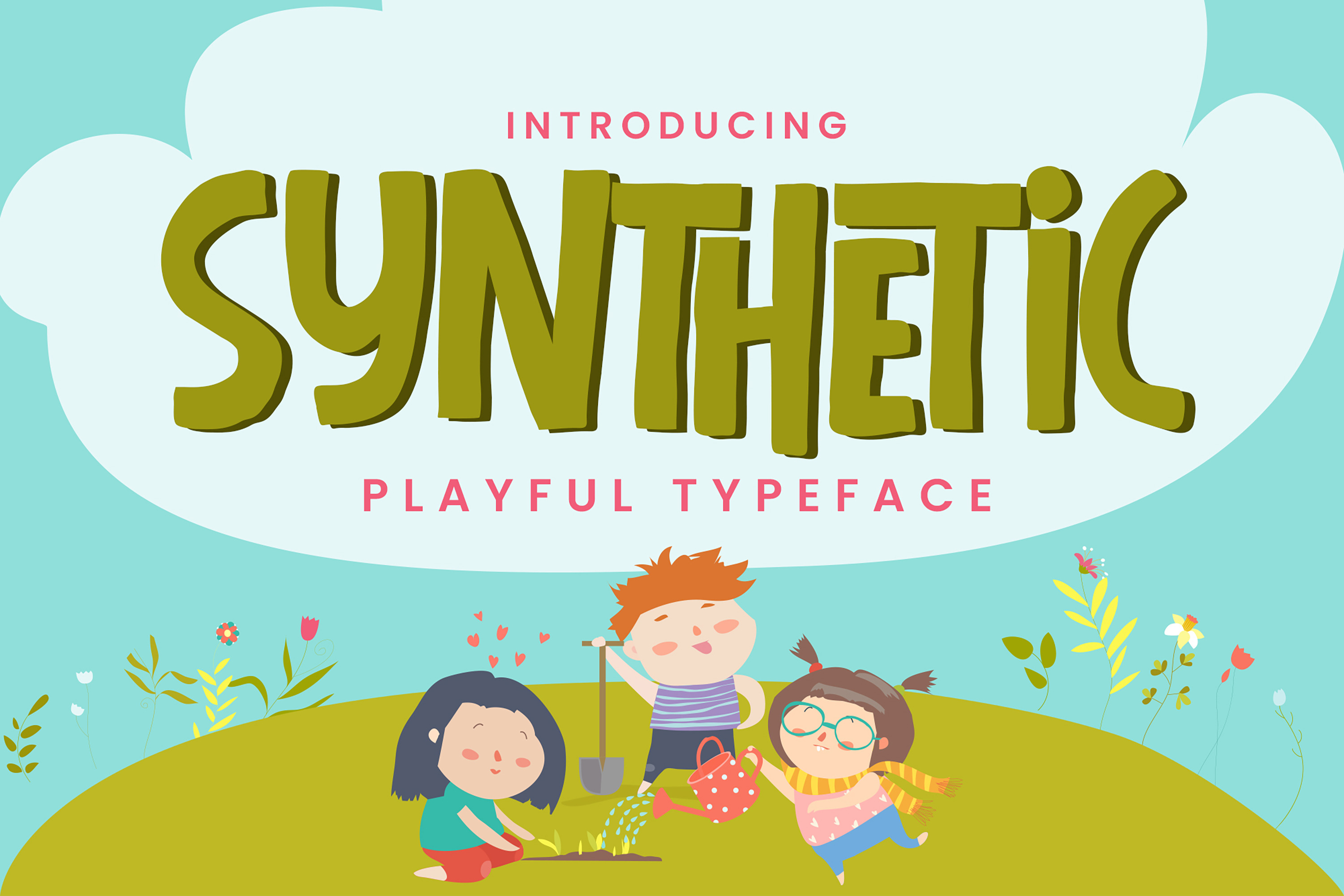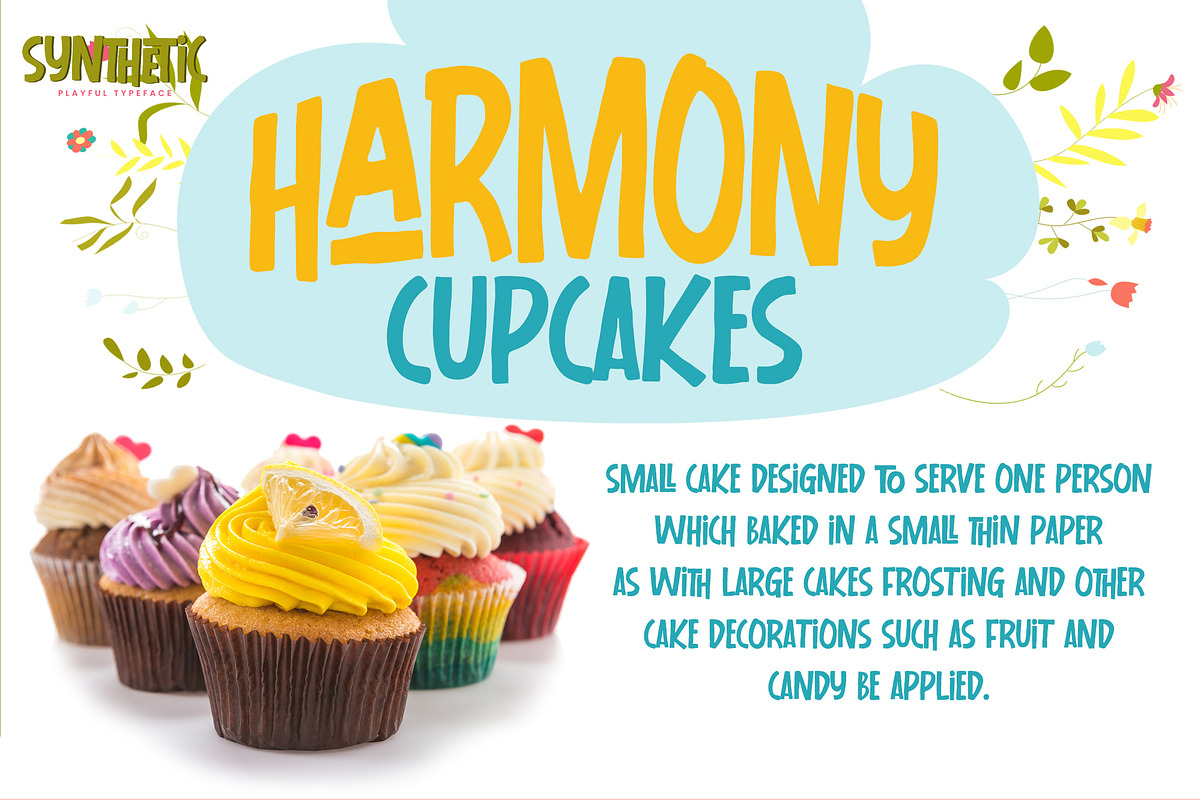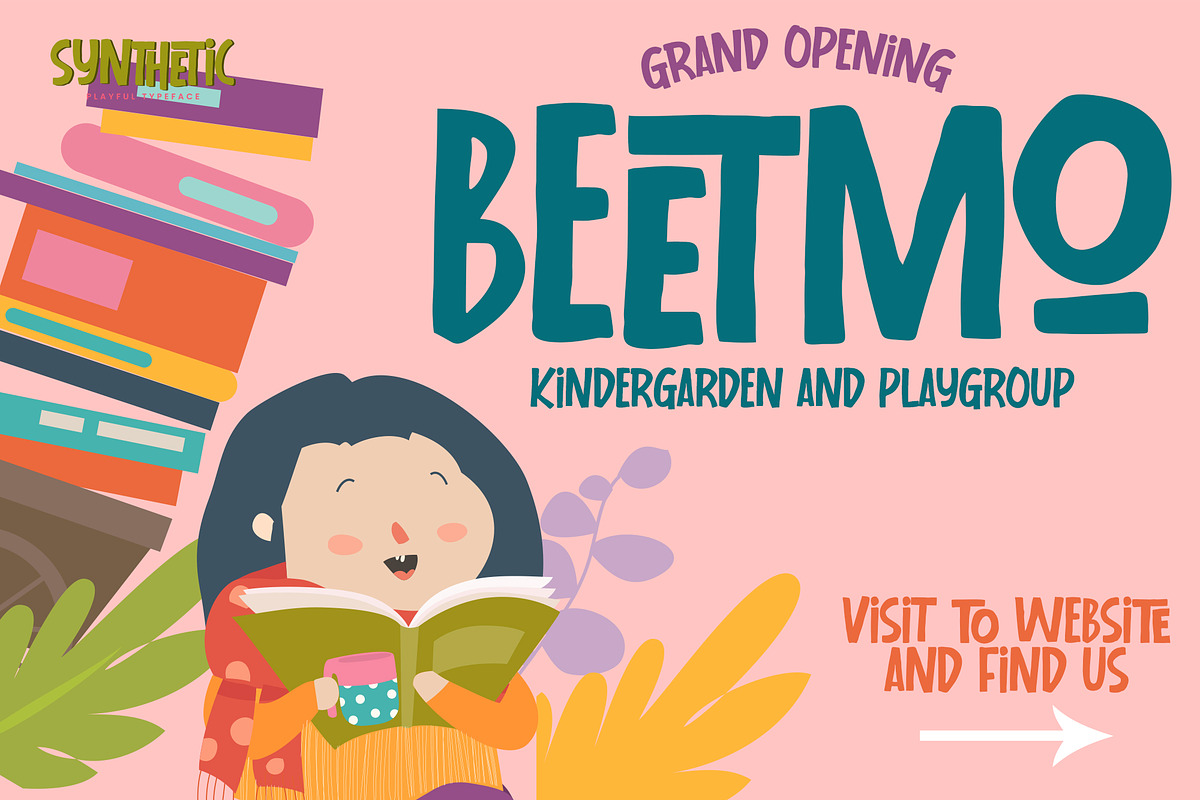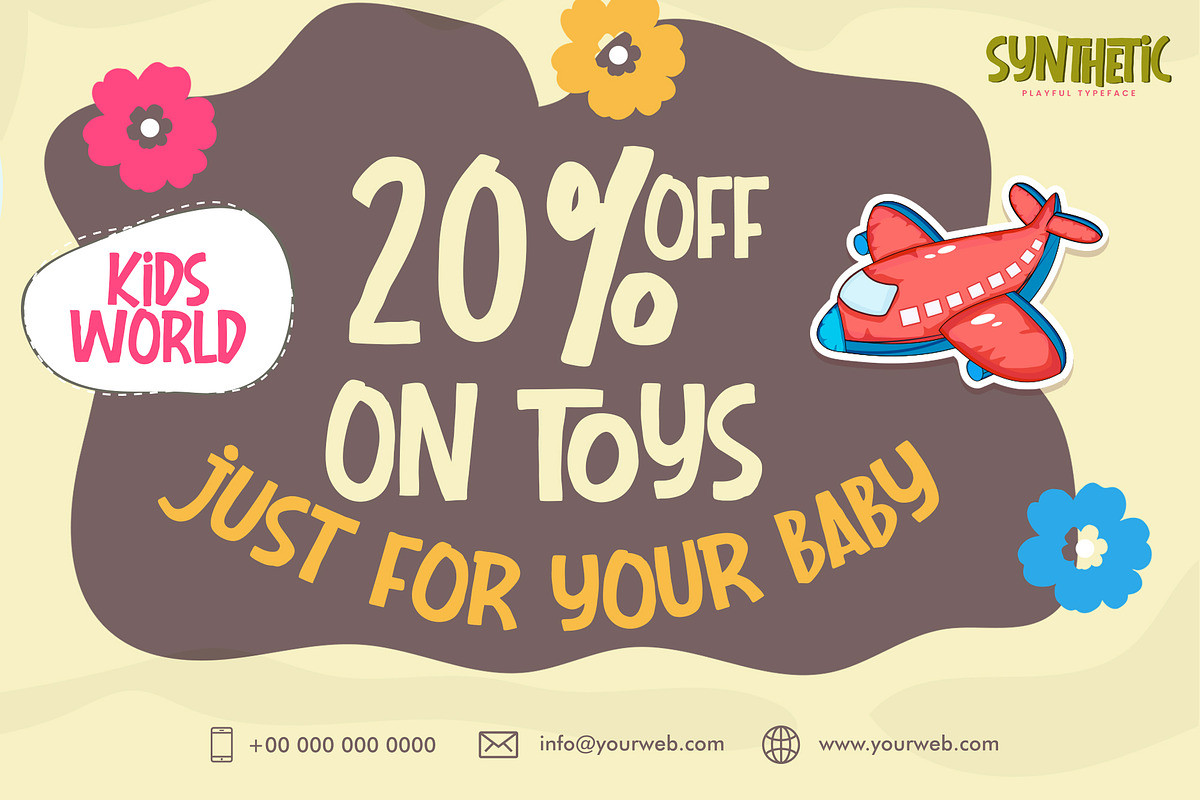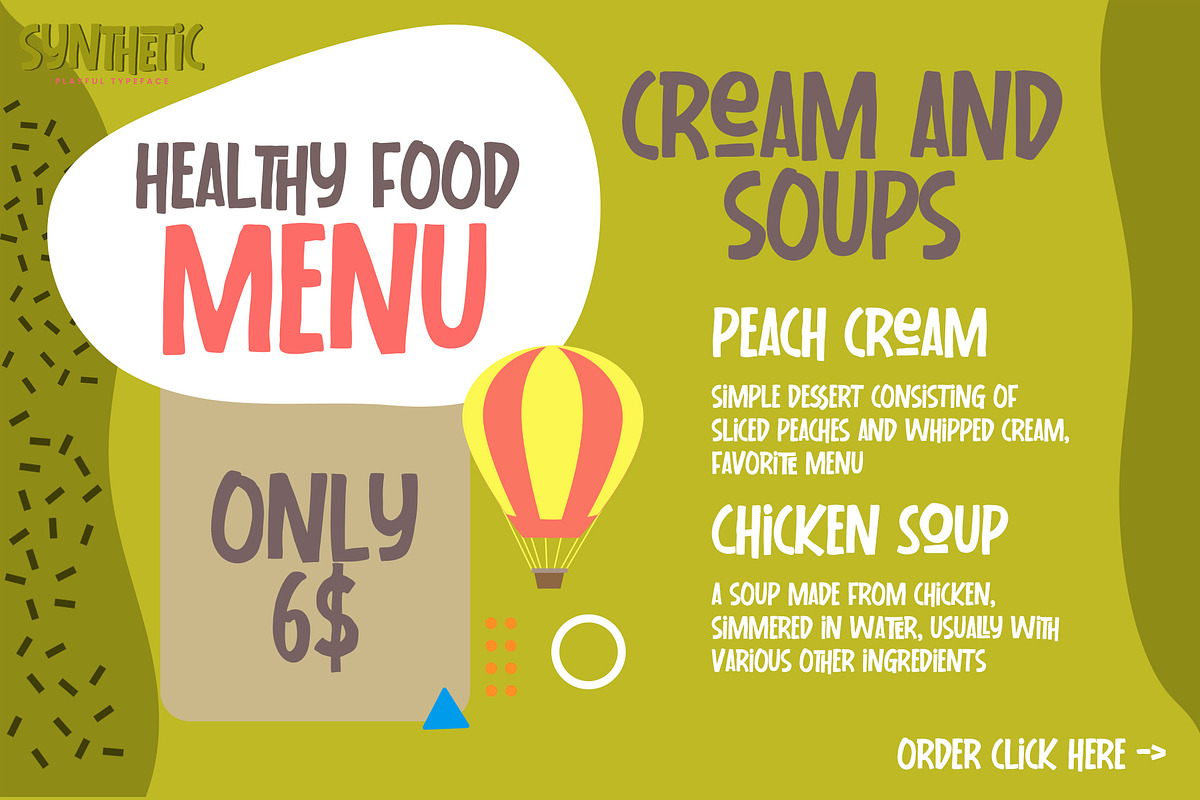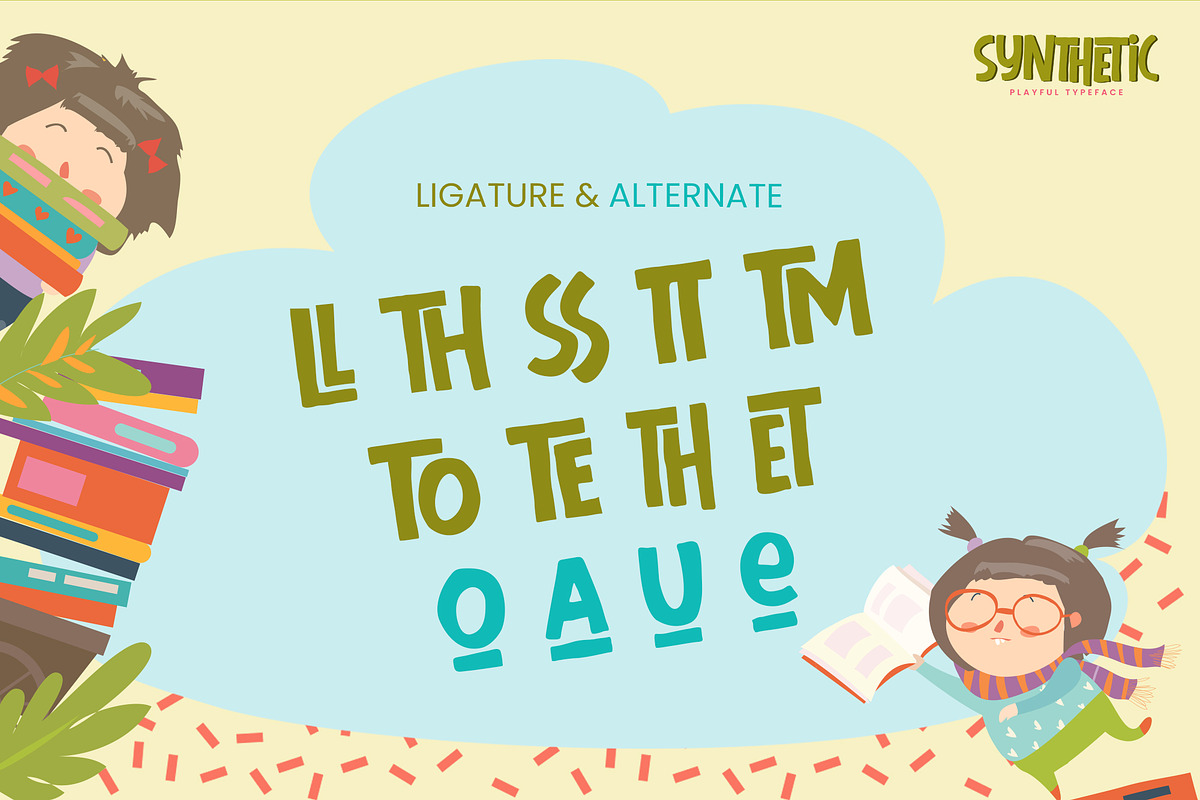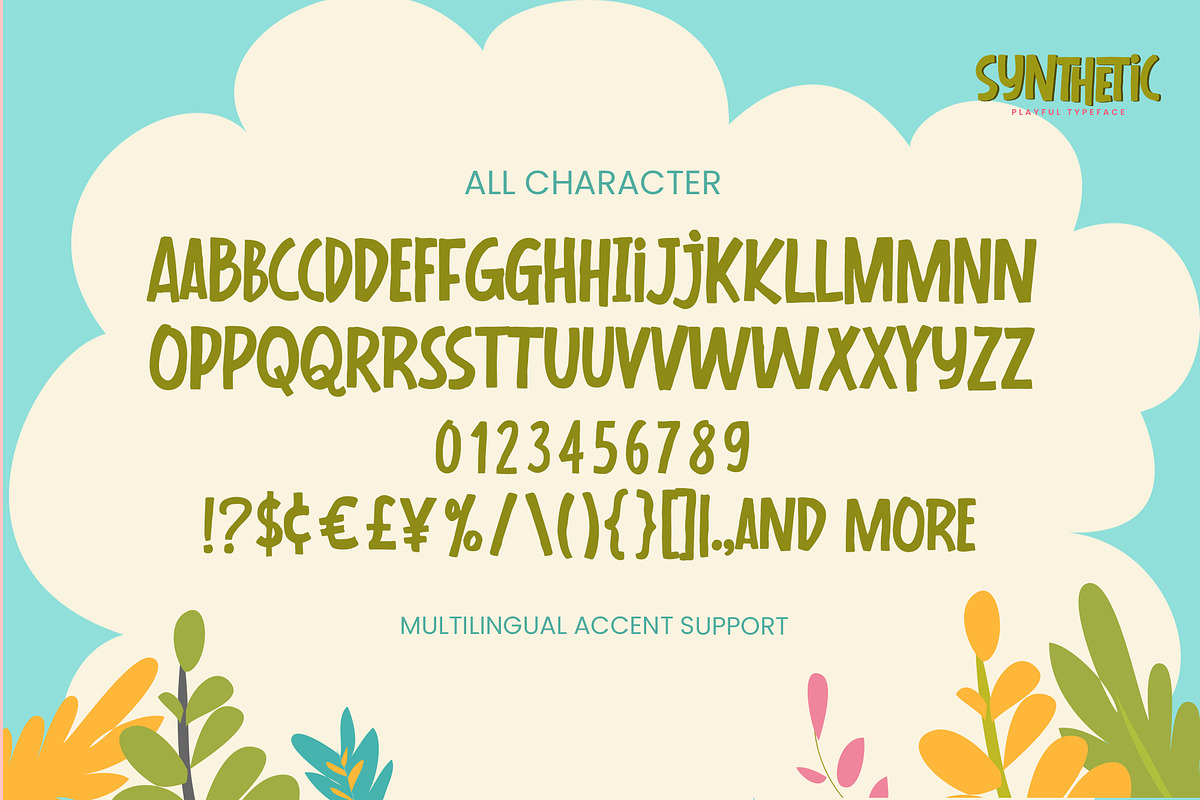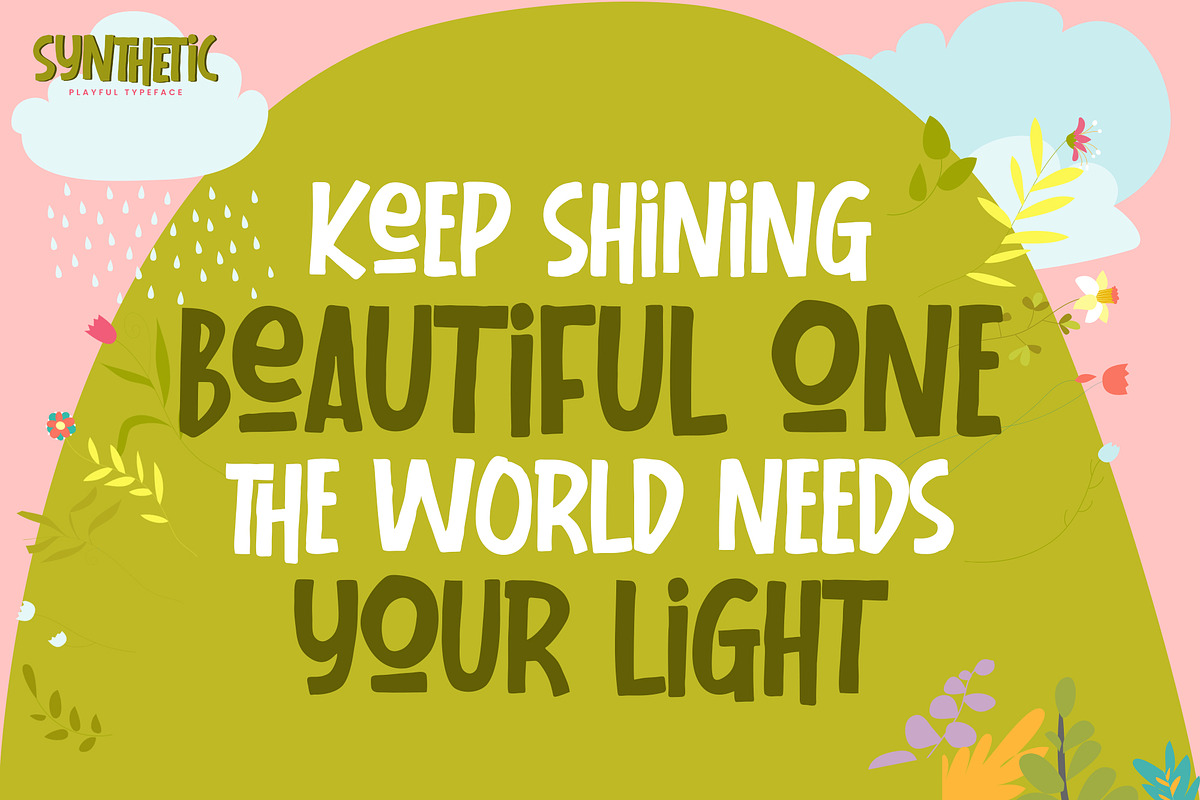
Syhthetic - Playful Typeface Font
Hello Everyone, Introduce our new collection Syhthetic - Playful Typeface Font Fun All Caps Font and display for posters, packaging, branding, logotype and more.
Syhthetic font with strong and challenging nuances. very suitable for the title, branding projects,typography,Logo, Poster, magazines, brochures, packaging,Websites and much more for your design needs, making your designs more modern and professional kids,unique and sweety
- Ligature glyps